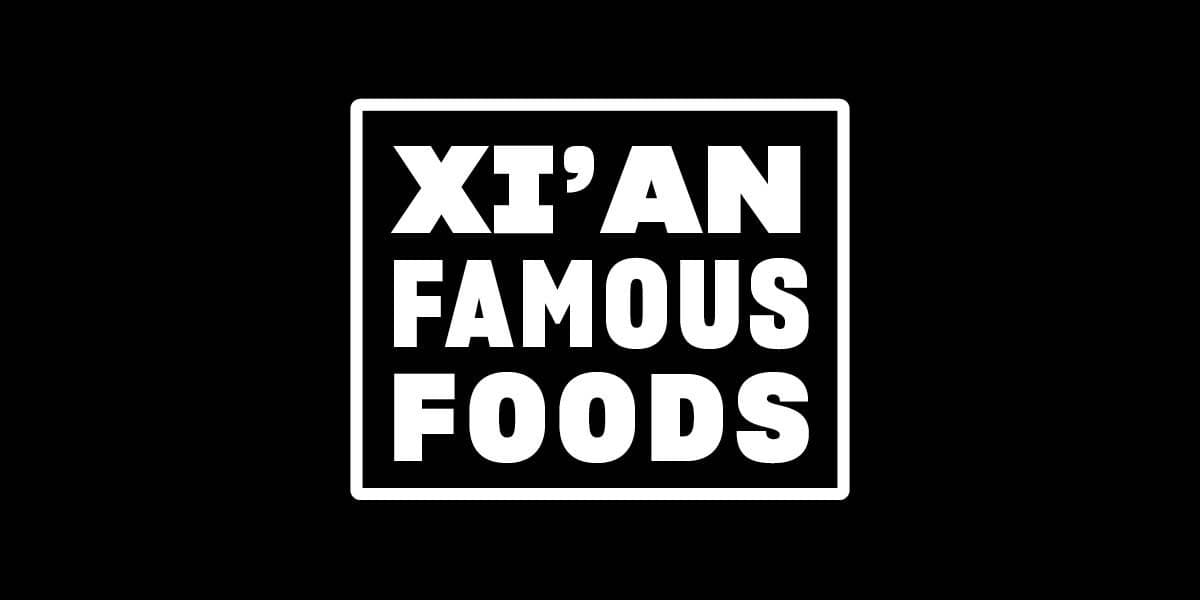
Xi'an Famous Foods is a local legend in New York City. It was the first restaurant to bring the little-known cuisine of Xi’an (of Shaanxi Province in China) to the United States, with its signature Liang Pi “Cold-Skin Noodles,” “burgers” with house-made flatbread stuffed with stewed pork or spicy cumin lamb, and various biang biang hand-ripped noodle dishes. Xi'an has since grown, with multiple locations throughout New York City, and remains independently owned by Jason Wang, son of David, the original chef and proprietor. For their first cookbook, published by Abrams Books, Sharp Grotesk is used most notably as the titling font on the book cover but also throughout the book for all the headlines, lending its unique combination of singular and adaptive qualities to a restaurant that has proven to possess those same traits.
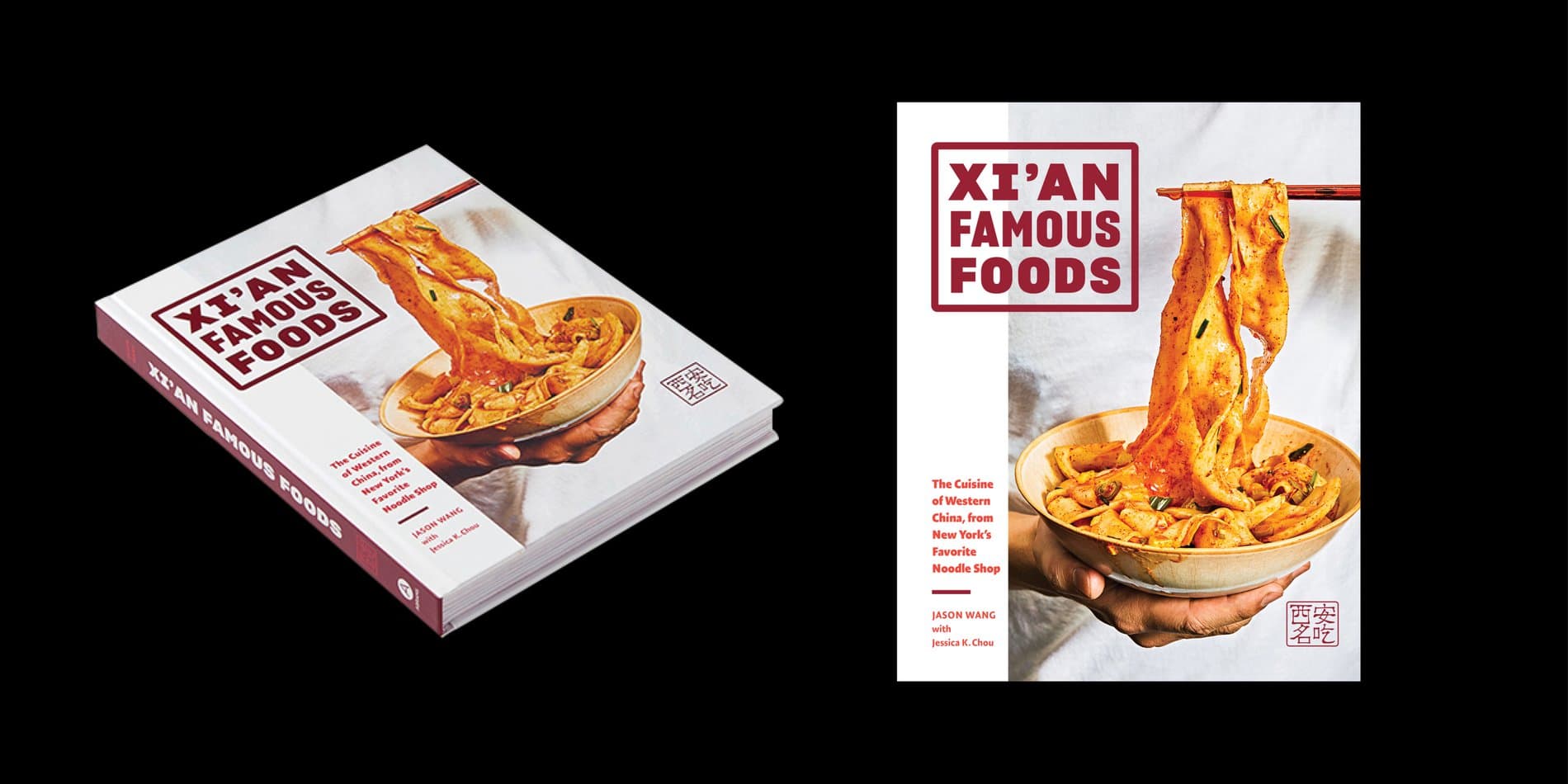
For a certain generation of New Yorker, visiting the original Xi’an Famous Foods (西安名吃) was a secret that you became privy to by word-of-mouth, likely during dinner with pasta-obsessed friends, or over drinks with the line cook who knew all the hole-in-the-wall spots. The secret became a pilgrimage for the uninitiated. Before Uber and Citibikes, if you wanted to get to Queens in the 2000s and early 2010s, you had to take the train there. Xi'an Famous Foods began in a 200-square-foot basement stall in the Golden Shopping Mall in Flushing. The foodcourt there was the arguable epicenter of the de-facto Chinatown of New York City. While it wasn't always packed, no matter when you went, there was always someone eating at Xi'an, and over the years, it became obvious that the good word had spread as the demographic of the patronage clearly changed.
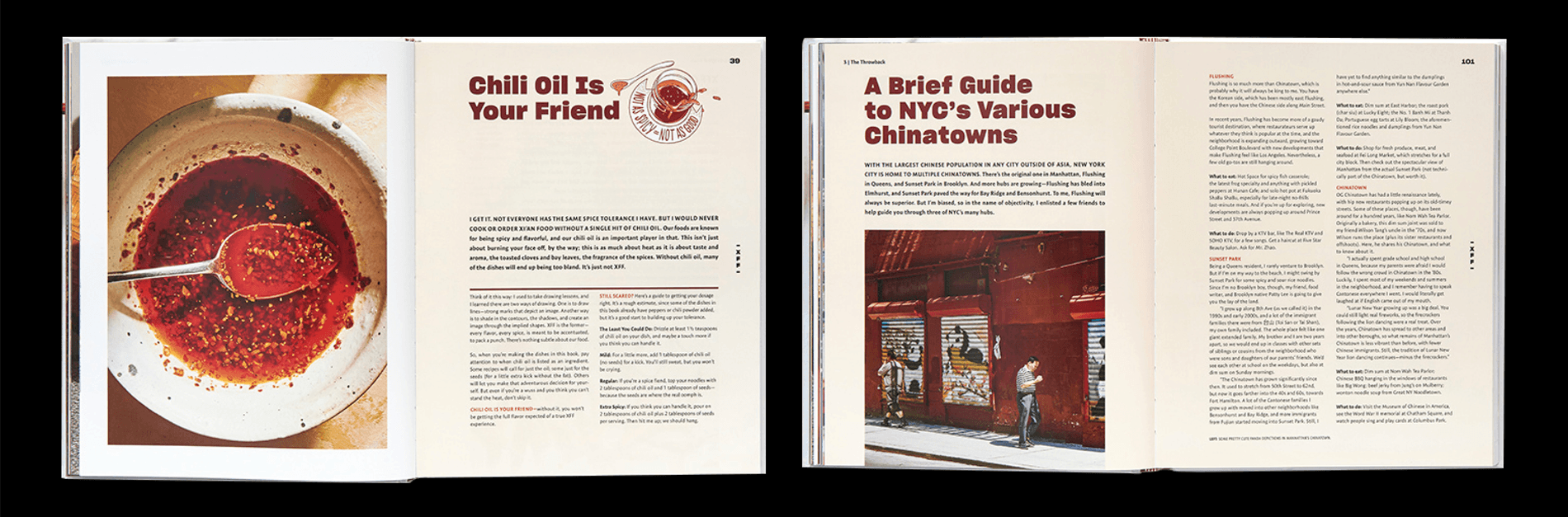
Before "authenticity" became the default signifier of "good" and an obsessive marketing aspiration, it meant something simple. For many, visiting Xi'an Famous Foods was an exotic experience, but the novelty was ideally eclipsed by the immediate, simple pleasure of good sauce and good noodles. Flavor and texture are two salient loci of taste -- and this is true for food, and also for type design. Sharp Grotesk's pleasures are simple and evergreen, but simple is always the most difficult thing to do. As far as brand associations go, we're in good company, and we're excited that a branch of Xi'an recently opened near our studio.